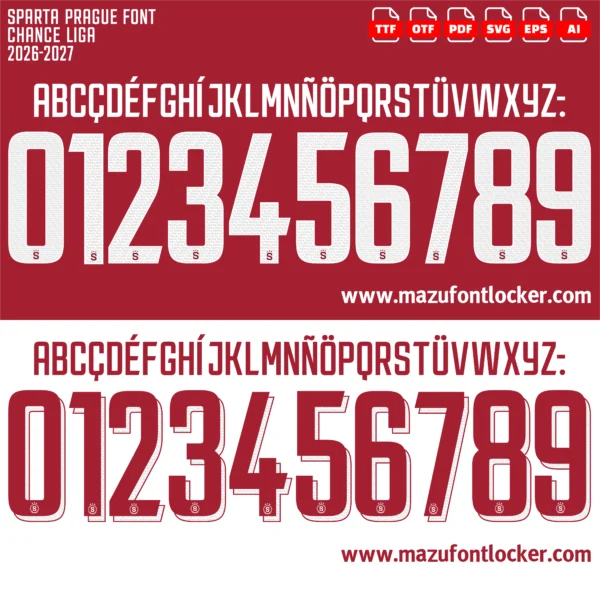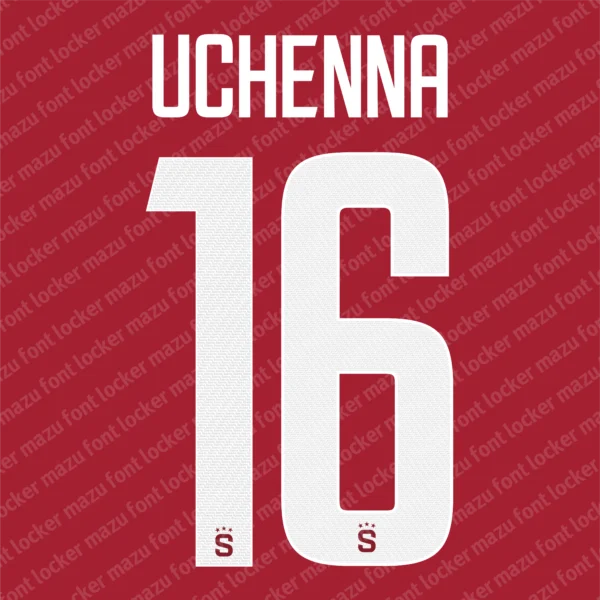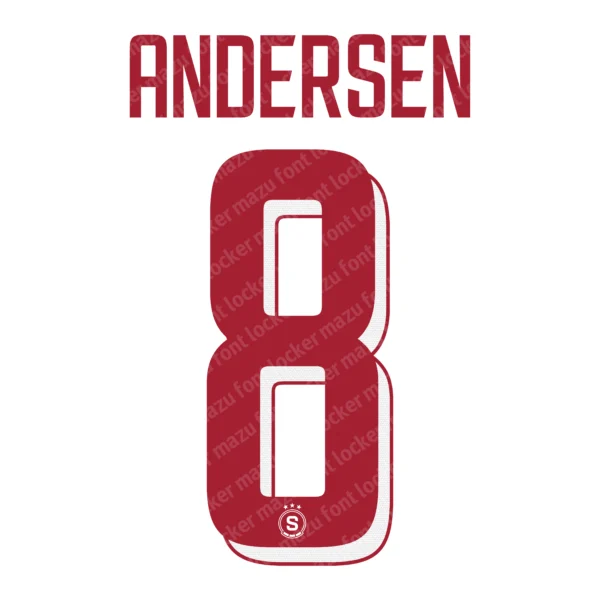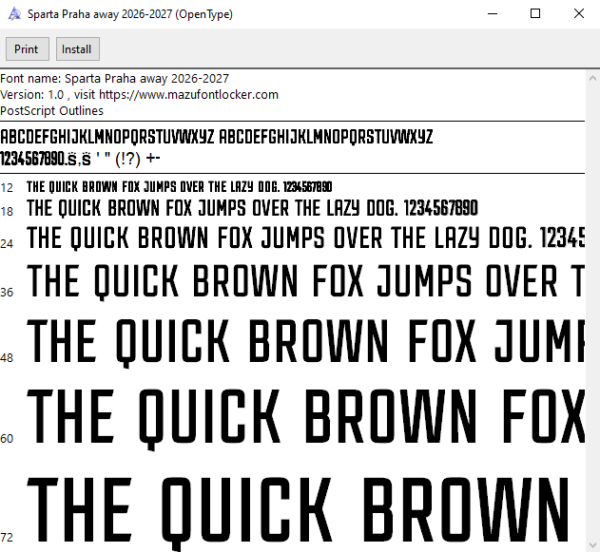
Sparta Prague 2026-2027 Font Vector – Epic Iron Sparta Masterpiece
This font captures the powerful, precision-crafted lettering inspired by Sparta Prague’s iconic maroon-and-white identity, proud Prague heritage, legendary Iron Sparta tradition, and fearless football spirit — delivering premium authenticity and explosive match-day energy for professional jersey mockups, football graphics, sports branding, fan designs, and high-end creative projects.
Sparta Prague 2026-2027 Font Vector – Stunning Bold & Dynamic Typeface
The Sparta Prague 2026-2027 Font Vector is a premium typeface that accurately recreates the distinctive match lettering associated with Sparta Prague during the 2026-2027 football season. This high-quality vector font kit captures the bold, clean, and instantly recognizable typography that perfectly complements the club’s iconic identity across the Czech top flight and European competitions.
Designed for professional designers, football enthusiasts, jersey collectors, and passionate Sparta Prague supporters, the Sparta Prague 2026-2027 Font Vector delivers exceptional authenticity for creating realistic jersey mockups, football merchandise, social media graphics, match posters, squad designs, and custom fan artwork. Every character has been carefully recreated to reflect the powerful and precise visual style of the Iron Sparta during the 2026-2027 campaign.
This font stands out thanks to its precise vector construction and authentic club-inspired styling. Every letter and numeral has been meticulously recreated to match the distinctive football lettering aesthetic associated with Sparta Prague during the 2026-2027 season and its domestic and continental campaign. Whether you’re producing professional football kit templates, custom jersey concepts, or eye-catching football content, the Sparta Prague 2026-2027 Font Vector delivers a genuine match-ready appearance inspired by the identity of one of the Czech Republic’s most historic and successful clubs.
The lettering featured in the Sparta Prague 2026-2027 Font Vector combines clean geometric lines with bold modern proportions. The result is a premium and highly readable typeface that reflects the proud football heritage of Sparta Prague, its passionate fanbase, and the unique character of Czech football culture.
- Complete uppercase A–Z alphabet and numbers 0–9 in authentic Sparta Prague 2026-2027 inspired style
- Special Sparta Prague badge glyph – Press the “:” (Colon) key to insert the club badge
The Sparta Prague 2026-2027 Font Vector is inspired by the distinctive football typography and visual identity associated with this campaign, making it an excellent choice for designers creating custom jersey concepts, football posters, squad graphics, matchday artwork, and fan-made projects.